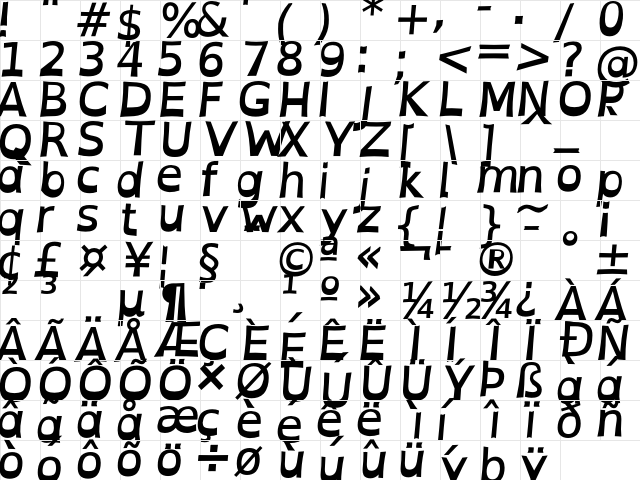
OpenDyslexicAlta Nerd Font Mono Bold Italic
Designer: Abelardo Gonzalez
Design Context for OpenDyslexicAlta Nerd Font Mono
OpenDyslexicAlta Nerd Font Mono uses fixed-width spacing throughout, giving it the structured, systematic character associated with coding environments and technical documentation. The slanted form adds forward momentum and visual energy. Its bold stroke weight gives it real presence on the page.